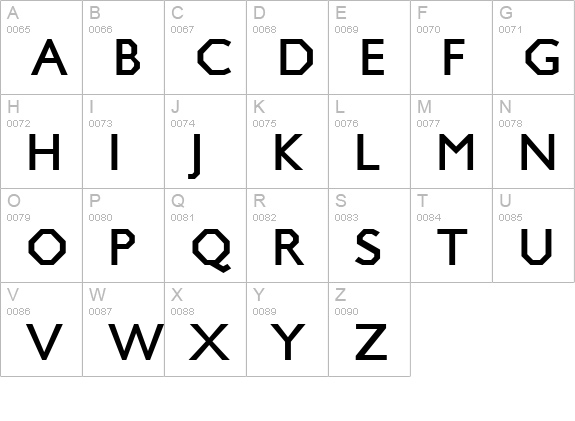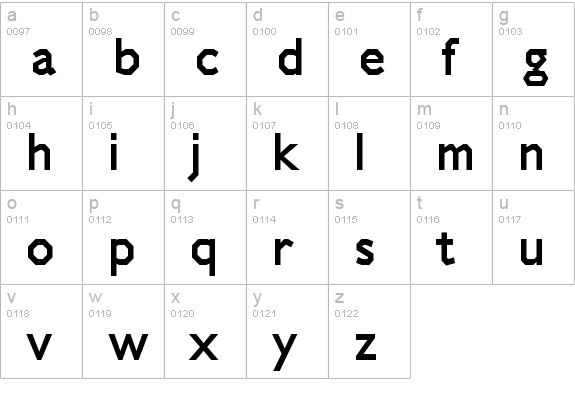
Jillican Heavy is a heavy, high-impact variant in the Jillican typeface family \xE2\x80\x94 well suited to high-impact headlines, posters, and display advertising.
Introducing Jillican Heavy font, a bold and impactful typeface that demands attention. With its strong, thick lines and sturdy presence, Jillican Heavy is perfect for headlines, titles, and other display purposes that require a touch of confidence and authority. This versatile font exudes a sense of power and strength, making it ideal for branding, packaging, posters, and more. Whether you want to make a bold statement or simply add a touch of boldness to your designs, Jillican Heavy has got you covered. Best of all, Jillican Heavy is available for free download at FontsMarket.com. So go ahead and elevate your designs with this striking typeface today!